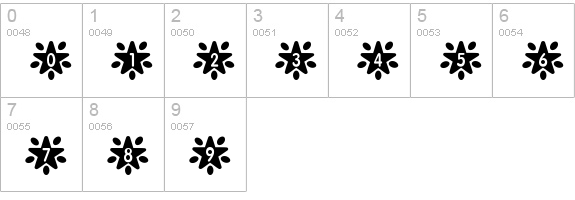
STAR+STAR (sRB) Font Details
Introducing STAR+STAR (sRB) font - a stunning display font that exudes elegance and creativity. With its unique and intricate design, this font is guaranteed to grab attention and make a bold statement. What sets STAR+STAR (sRB) font apart is not only its striking aesthetics but also its versatility. Whether you're designing a logo, creating eye-catching headlines, or crafting beautiful invitations, this font is the perfect choice to elevate your project to the next level. One of the most exciting features of STAR+STAR (sRB) font is that it is freely available to download at FontsMarket.com. This means that you can easily access and use this extraordinary font in your design projects without any constraints. Designed with meticulous attention to detail, STAR+STAR (sRB) font offers a wide range of stylistic alternates, ligatures, and swashes, allowing you to customize your text and create a truly unique look. Its smooth curves and clean lines make it a joy to read, ensuring that your message is conveyed effortlessly. Whether you're a graphic designer, a branding specialist, or simply someone who appreciates beautiful typography, STAR+STAR (sRB) font is a must-have addition to your font collection. Download it for free at FontsMarket.com and unlock a world of endless design possibilities.